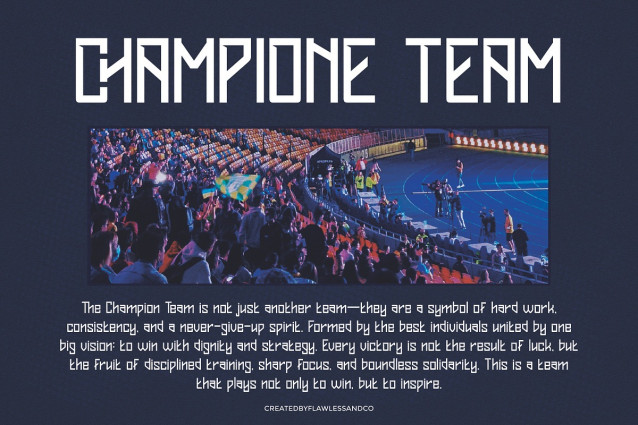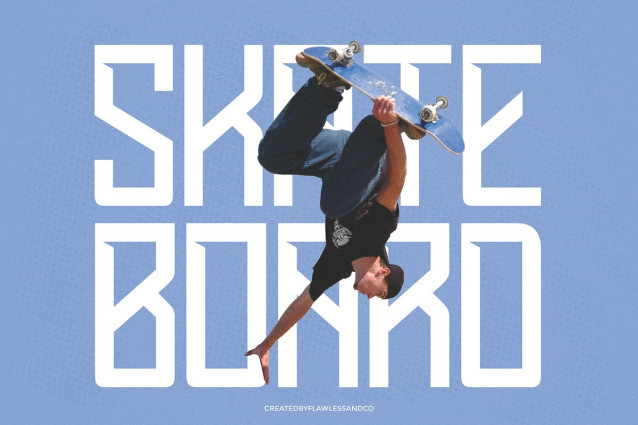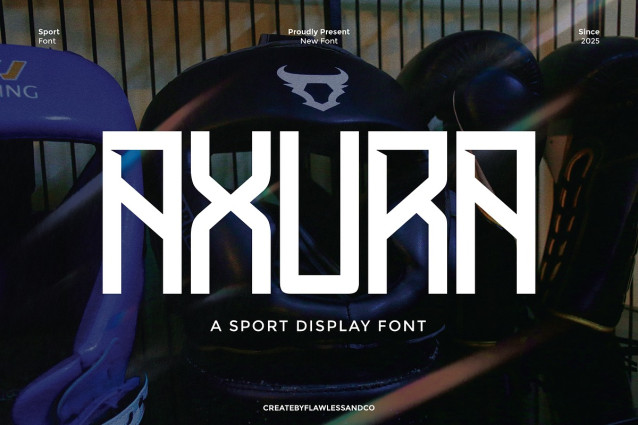
Axura Font
Axura Font is a bold and energetic sport display font built for impact. With its strong geometric forms and dynamic structure, Axura captures the spirit of competition and power. Perfect for sports branding, team logos, event posters, or activewear design, this font adds intensity and confidence to every project. Whether on-screen or in print, Axura stands tall with a striking, athletic aesthetic that commands attention.